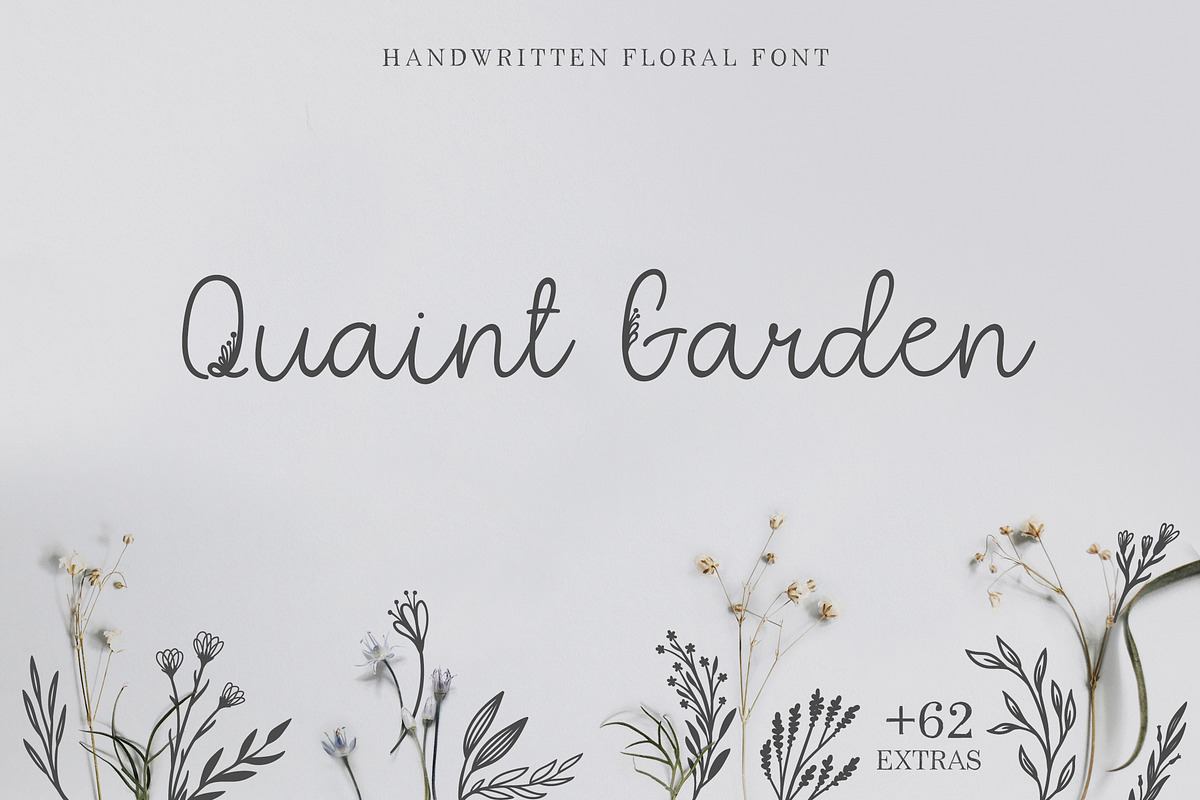
Quaint Garden Floral Font is perfect for botanical branding projects, garden center signage, floral wedding invitations, nature-inspired packaging, greenhouse business materials, organic product labels, spring festival promotions, florist shop branding, botanical illustration titles, eco-friendly marketing campaigns, cottage garden designs, and whimsical nature-themed projects.
Quaint Garden Floral Font is exciting because it captures the enchanting beauty and delicate charm of blooming gardens through intricate letterforms adorned with botanical flourishes that bring the magic of nature to every design. This captivating typeface features organic curves and floral embellishments that evoke the gentle romance of cottage gardens and wildflower meadows. The font's natural elegance creates instant connections with audiences who appreciate the timeless beauty of flowers and the peaceful serenity of garden settings.
Quaint Garden Floral Font includes comprehensive font families: Regular Bloom Style, Bold Garden Display, Light Petal Touch, Medium Botanical Balance, Italic Vine Flowing, Decorative Flower Elements, Ornamental Leaf Patterns, Shadow Garden Effects, Clean Modern Alternative, and Special Botanical Symbols, providing endless creative possibilities for nature-inspired design projects.
This enchanting typography solution transforms ordinary text into blooming garden experiences through its authentic botanical aesthetic and nature-inspired design language. Quaint Garden Floral Font Free Download enables designers and nature lovers to access premium floral typography that instantly adds organic beauty, natural charm, and garden-fresh appeal to any creative project. The font's carefully crafted botanical elements ensure beautiful integration while maintaining excellent readability and professional quality.
Garden businesses, wedding planners, and nature-focused brands trust Quaint Garden Floral Font for its ability to communicate natural beauty, organic quality, and garden-inspired tranquility to audiences seeking authentic connections with nature and botanical aesthetics. The typeface's delicate construction performs beautifully across various applications, from intimate garden labels to large-scale botanical branding campaigns. Its extensive character support includes multilingual capabilities and decorative elements designed specifically for floral and garden contexts.
The creative inspiration behind Quaint Garden Floral Font draws from English cottage gardens, Victorian botanical illustrations, and the timeless art of floral typography that celebrates the natural world's beauty. This nature-focused approach creates a font that feels genuinely botanical while maintaining professional versatility across different garden themes and nature-inspired brand expressions.